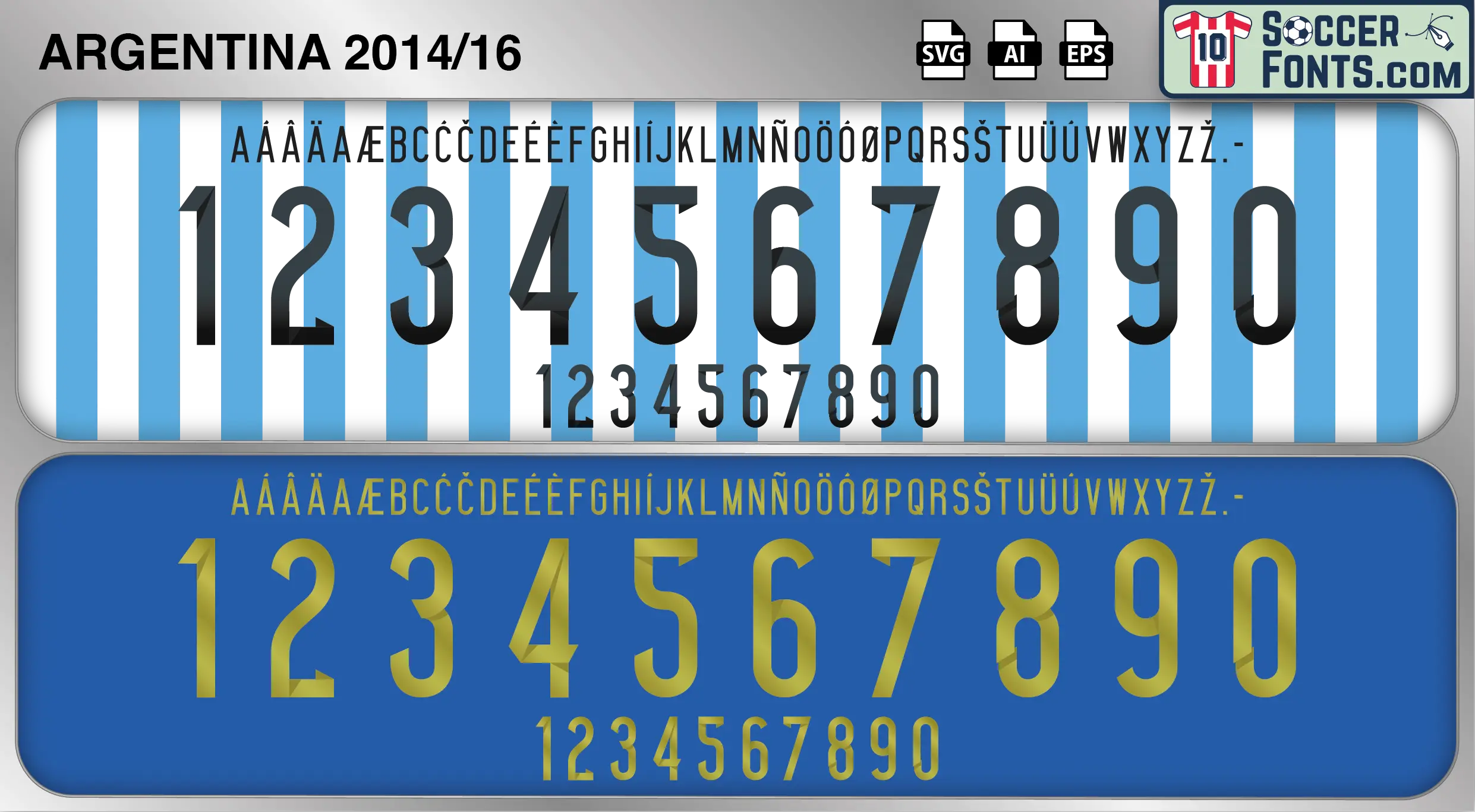
Argentina 2014-16 Font
The Argentina 2014-16 font is an editable soccer jersey lettering design in vector format inspired by the Argentina kit style used during the 2014-16 football seasons. This football font artwork is prepared for football shirt recreations, custom jersey projects, football kit mockups and sports graphic design workflows.
The 2014-16 period followed Argentina’s appearance in the 2014 FIFA World Cup Final and featured consecutive Copa América campaigns that kept the national team among the world’s elite. Lionel Messi, Javier Mascherano, Ángel Di María, Sergio Agüero, Gonzalo Higuaín and Nicolás Otamendi formed the core of a squad that consistently challenged for major international honors. Argentina reached the finals of both the 2015 Copa América and Copa América Centenario in 2016, producing strong performances throughout both tournaments and maintaining one of the highest standards in international football.
The Argentina 2014-16 font became associated with a highly competitive generation that repeatedly came close to ending the country’s long wait for a major senior international title. Argentina shirts from this era remain especially popular among football shirt collectors because of their connection with Messi’s prime years and a squad that regularly competed on football’s biggest stages. The Argentina 2014-16 font reflects a period filled with drama, expectation and world-class football, capturing one of the most significant chapters in Argentina’s modern football history and the continued pursuit of international success.